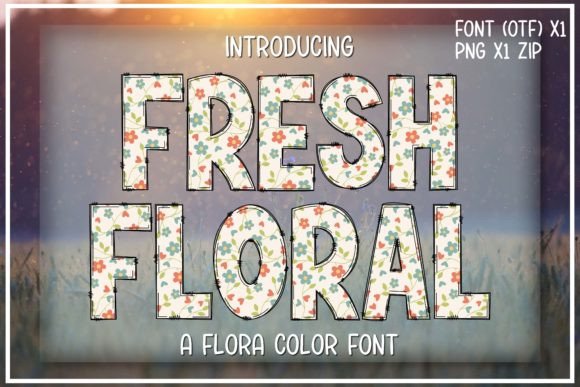
Spring has sprung and it's time to freshen up your designs with the perfect font. Look no further than Fresh Floral Font, the colorful addition your designs have been waiting for. This font family created by MDF features heavy sans-serif lettering in pastels with charming flower accents throughout.
But Fresh Floral Font is more than just a pretty face. Its chunky lettering adds depth and dimension to your designs, making them come alive like never before. With color glyphs visible in Illustrator CC 2018+, Photoshop CC 2017+, and InDesign CC 2019+, your designs will truly pop. And for those using older software or operating systems, don't worry, Fresh Floral Font has you covered with backward-compatible black shapes.
Whether you're creating invitations, posters, or social media graphics, Fresh Floral Font is the perfect choice. It's versatile enough to use for both titles and body text, and the emotional connection it creates with its pastel hues and floral accents is sure to captivate your audience.